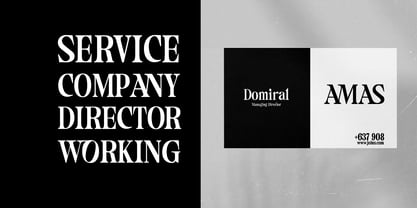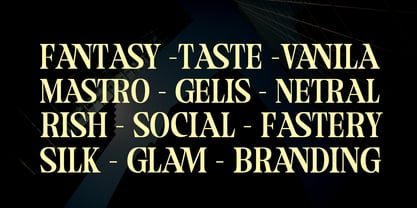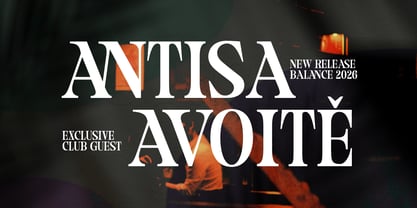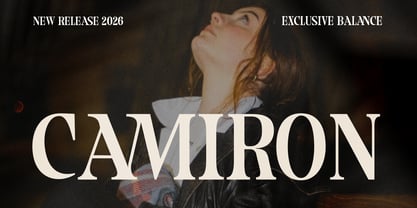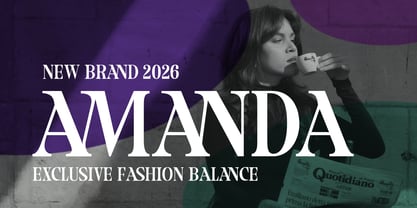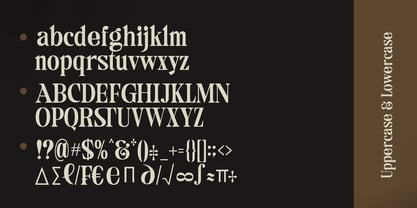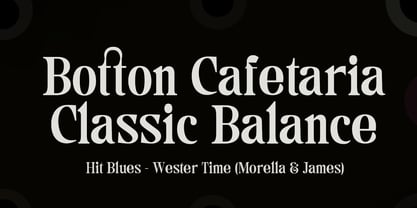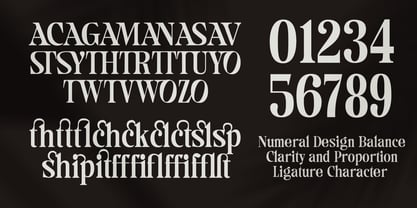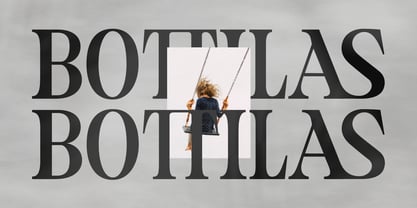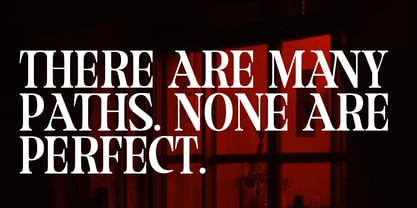
Camiron
La familia tipográfica Camiron fue diseñada por khaidir y publicada por Gatype. Camiron contiene 20 estilos y opciones de paquete familiar. Más información sobre esta familia
Introducing Camiron, a display serif font featuring elegant, stylish curves. It blends romantic, classy, ​​and modern vibes—making it a true must-have for your font collection.
Camiron is a high-quality font. Beyond its versatility, it embodies pure elegance and sophistication, offering the perfect fusion of luxury and high-fashion style. Don't wait to add this exquisite font set to your collection and start creating today.
Camiron comes with a comprehensive character set, including:
uppercase and lowercase letters
multilingual characters
numerals
punctuation